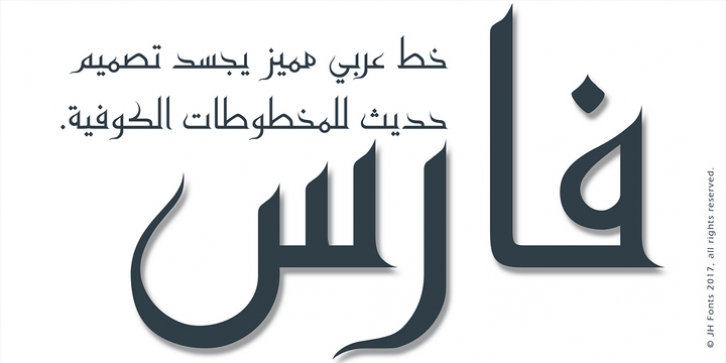
Jh Fares is a modern / simple Kufic style font. The user may notice plenty of white space around the text leading to a highly readable font.
The Kufic script is one of the oldest Arabic Handwriting, first appeared in el Koufa - Iraq.
The original calligraphy was derived from the Aramaic letters; later it went thru lots of enhancements. Its typical uses include decorative writings for Mosques / palaces, Magazines / Newspapers / Books titles and Greetings.